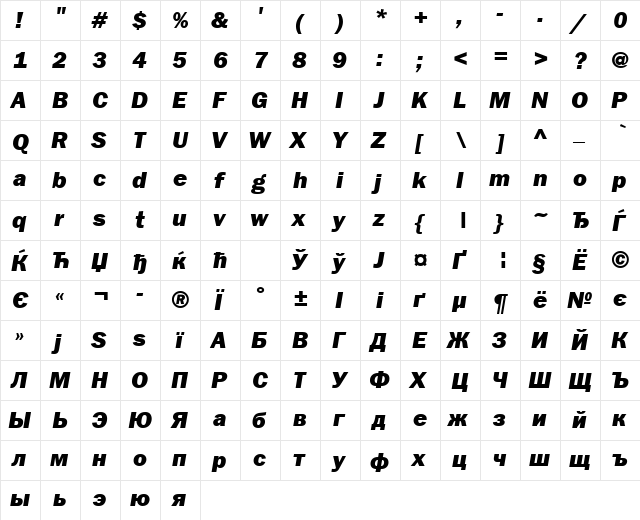
FranklinGothHeavyCTT Italic
Design Context for FranklinGothHeavyCTT Typeface
FranklinGothHeavyCTT offers clean, dependable letterforms without strong stylistic allegiance, making it a practical choice for designers who need flexibility. The slanted form adds forward momentum and visual energy.
Pro Tip: Use FranklinGothHeavyCTT for emphasis, pull quotes, and subheadings where its slanted energy can add rhythm to the layout.